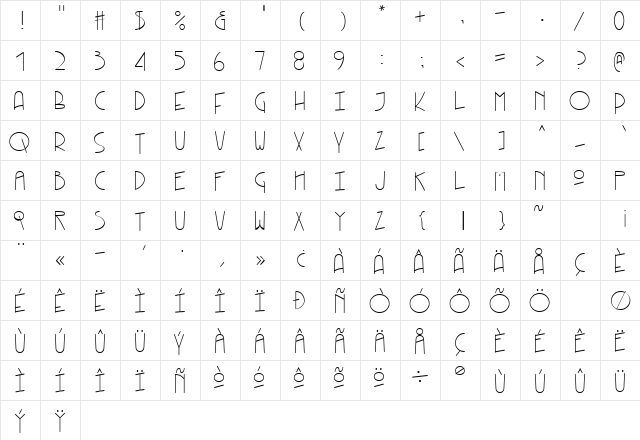
KneeblsThin Regular
Design Context for KneeblsThin Typeface
KneeblsThin offers clean, dependable letterforms without strong stylistic allegiance, making it a practical choice for designers who need flexibility. Its slender proportions lend an understated elegance to any composition.